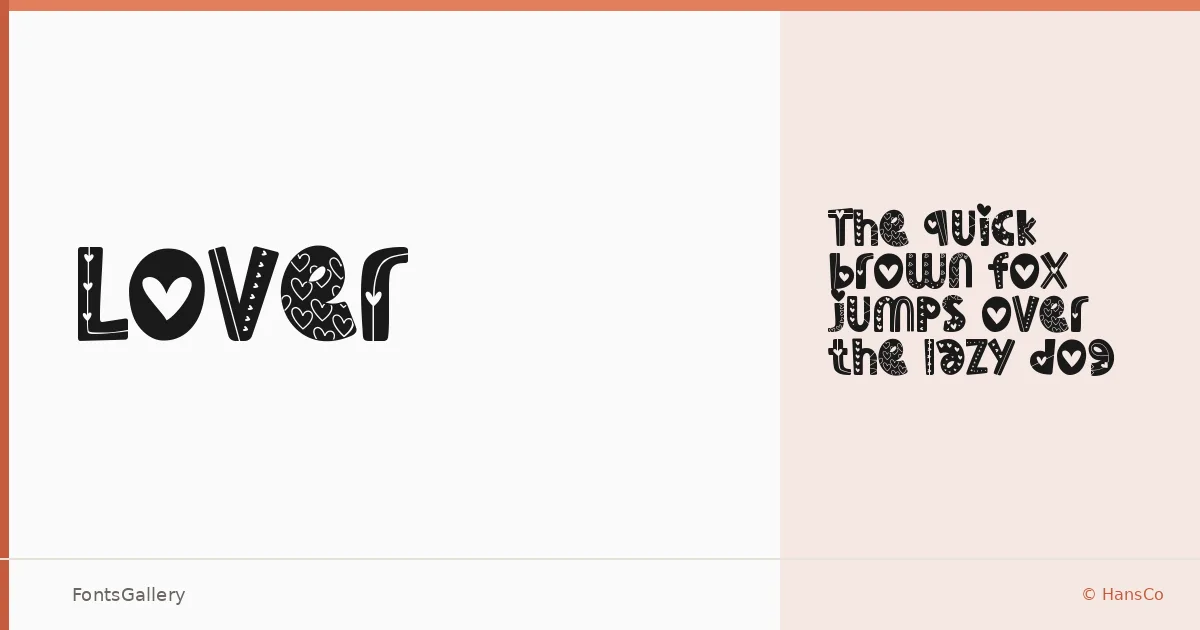
About Lover Font
There is a softness to this display face — something in the curves that leans into romance without tipping into sentimentality. It was designed by Burhan Afif under the HansCo foundry, and even in its single Regular weight it carries a strong, immediately readable personality built for short, expressive text.
This is a display typeface in the most honest sense: built for headlines, not body copy. The mood sits somewhere between playful and whimsical, with letterforms that feel hand-drawn in spirit while remaining composed enough for considered design work. The family ships as a single Regular cut in TTF format, so its strength lies in how deliberately you place it rather than how many weights you stack.
It earns its place on greeting cards, posters, and social media graphics where a romantic or lighthearted register is the point — equally at home on a T-shirt design or a branding mark that wants warmth over formality. Latin script is partially supported, so check that your character set covers everything you need before committing. For contrast pairings, the neutrality of Helvetica or Josefin Sans steadies it well, while Canela, Asap, or ABC Arizona offer more tonal kinship for editorial or lifestyle work.